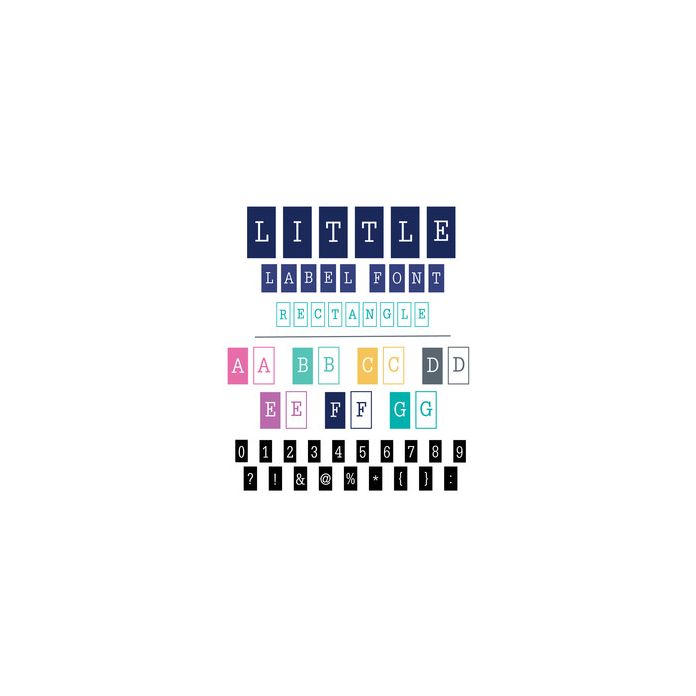
Rectangle Little Label Font. Hand drawn font, including upper and lower case letters, numbers and glyphs. For more design ideas, coordinating designs & products and inspiration, please visit my blog http://www.sarahhurleyblog.com